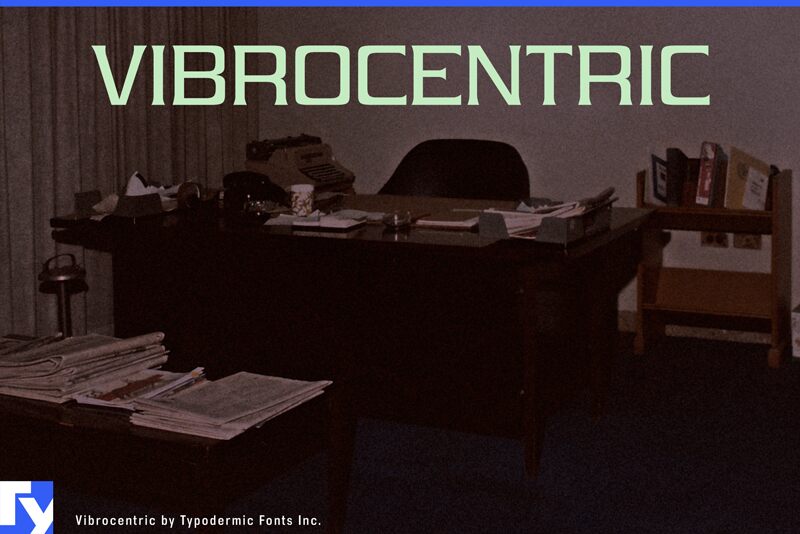
Vibrocentric-Italic
Dive into the distinctive world of Vibrocentric Italic, a font that boldly stands out with its unique character. Crafted by the talented Ray Larabie, this semi-light weight addition to the Vibrocentric family seamlessly blends the traditional touch of serifs with a futuristic twist. The expanded width commands attention, while its flared serif design adds an unexpected edge to texts.
With its undeniable curb appeal, Vibrocentric Italic is not just a typographical choice—it's an aesthetic statement. Its remarkable style is perfect for projects that aim to strike a balance between elegance and modernity. Whether you're designing eye-catching logos, engaging digital content, or stand-out print materials, this font ensures your work will leave a lasting impression.
Embrace the charm of Vibrocentric Italic and let it elevate your creative endeavors with its sickeningly sweet yet sophisticated flair.
With its undeniable curb appeal, Vibrocentric Italic is not just a typographical choice—it's an aesthetic statement. Its remarkable style is perfect for projects that aim to strike a balance between elegance and modernity. Whether you're designing eye-catching logos, engaging digital content, or stand-out print materials, this font ensures your work will leave a lasting impression.
Embrace the charm of Vibrocentric Italic and let it elevate your creative endeavors with its sickeningly sweet yet sophisticated flair.